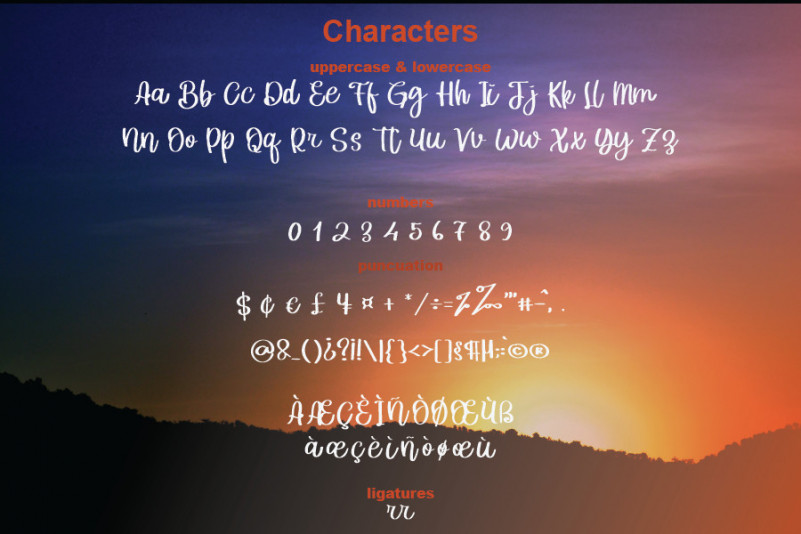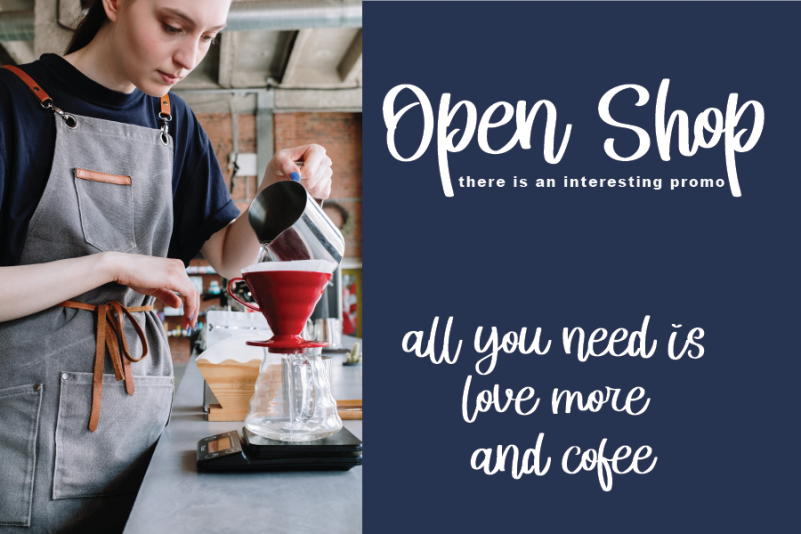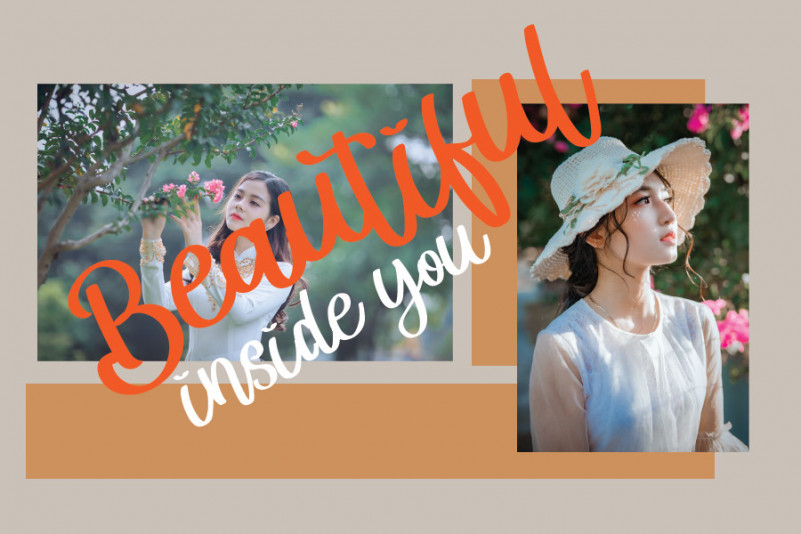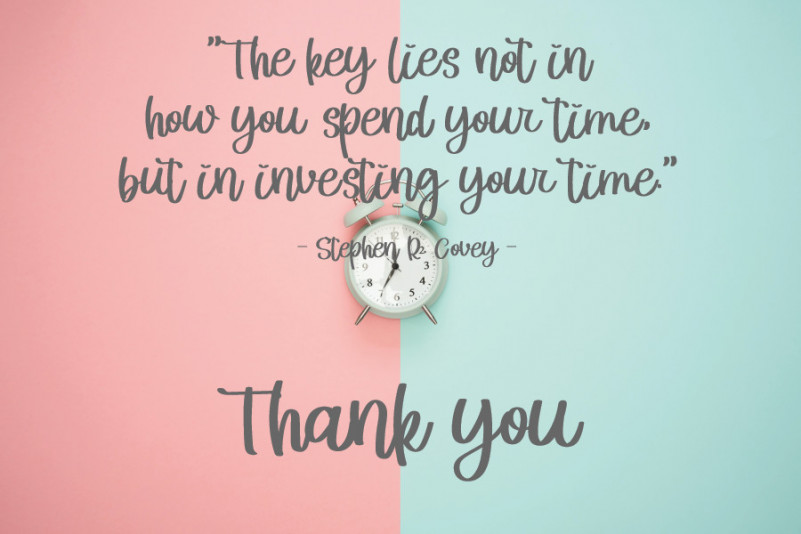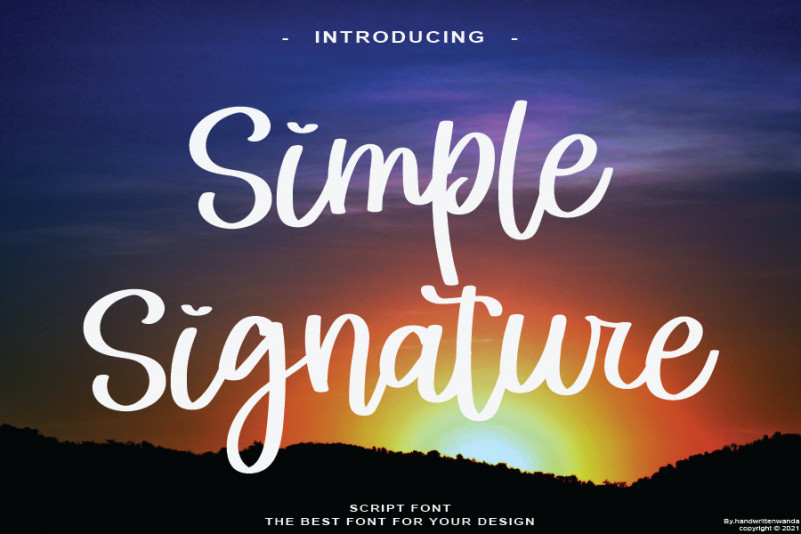
Simple Signature Font
Simple Signature Script Font
This is a well balanced, refined script font that emanates sophistication and elegance. Its stylish alternates and ligatures make this font the perfect match for any project.